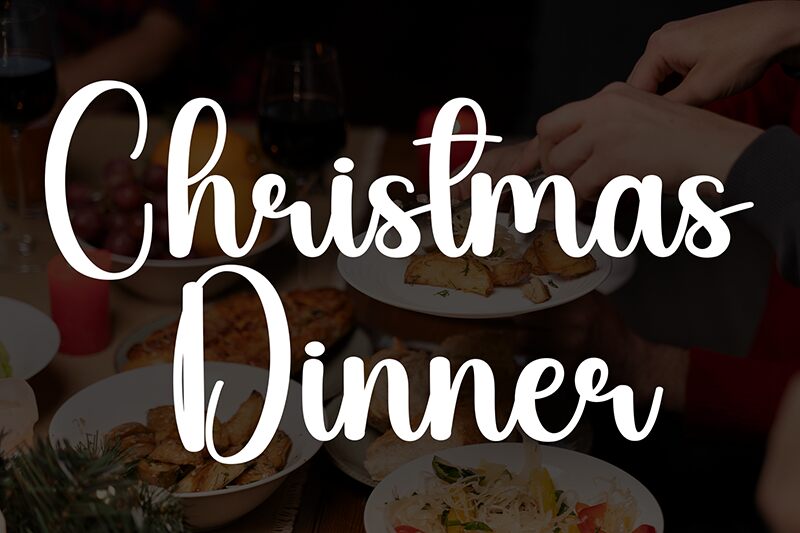
Christmas Dinner font by Andi Moz is a free handwritten script font blending modern calligraphy with a festive touch. With a charm that’s both friendly and inviting, it evokes a warm, approachable vibe suitable for any creative project. This elegant script font combines casual sophistication with a hint of the festive, perfect for those special holiday projects.
Christmas Dinner is ideal for invitations, greeting cards, holiday packaging, seasonal marketing materials, blogs, social media graphics, gift tags, apparel designs, signage, and festive branding. Its charming feel will add a special warmth to your creations.
This is a sweet and friendly handwritten display font. Cute and fun, this free font is ideal for writing wedding invitations, cards, or any other design that could benefit from a playful touch.